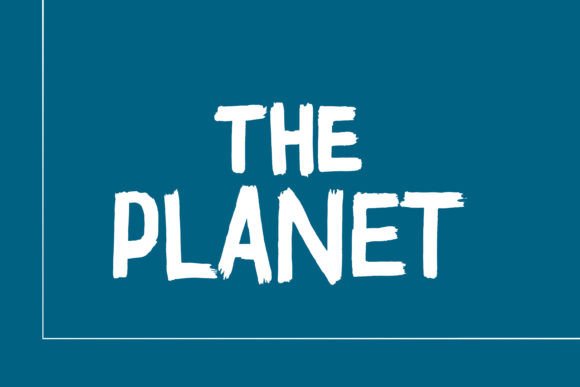
Unleash the power of expression with The Planet Font, a captivating script font that boldly carves its presence into the world of digital art. Its distinctive one-stroke brush style exudes a raw and edgy charm, setting it apart from the mundane. Immerse yourself in the diverse textures that The Planet Font offers, effortlessly adapting to both retro and vintage aesthetics, while maintaining a modern touch.
With The Planet Font, the possibilities are endless. Craft eye-catching poster headings that command attention, leaving an indelible mark on your audience. Elevate your social media presence with captivating visuals that resonate with your followers. Design logos that reflect your brand's unique personality and leave a lasting impression on customers. The Planet Font is more than just a font; it's an artistic tool that unlocks your creative potential.
Step into a realm where imagination thrives, where words dance with grace and power. Allow The Planet Font to be your guide as you navigate the depths of artistic expression. Its carefully crafted glyphs and ligatures, accessible through PUA coding, provide endless opportunities for customization and personalization. Unleash your inner artist and create designs that speak to your soul, captivating the hearts of all who behold them.
The Planet Font is more than just a font; it's an experience. Immerse yourself in a world of creativity, where boundaries are shattered, and artistic expression knows no limits. Let The Planet Font ignite your passion, fuel your imagination, and propel you to new heights of creative achievement. Embrace the power of The Planet Font and embark on a journey of artistic exploration that will leave you breathless.